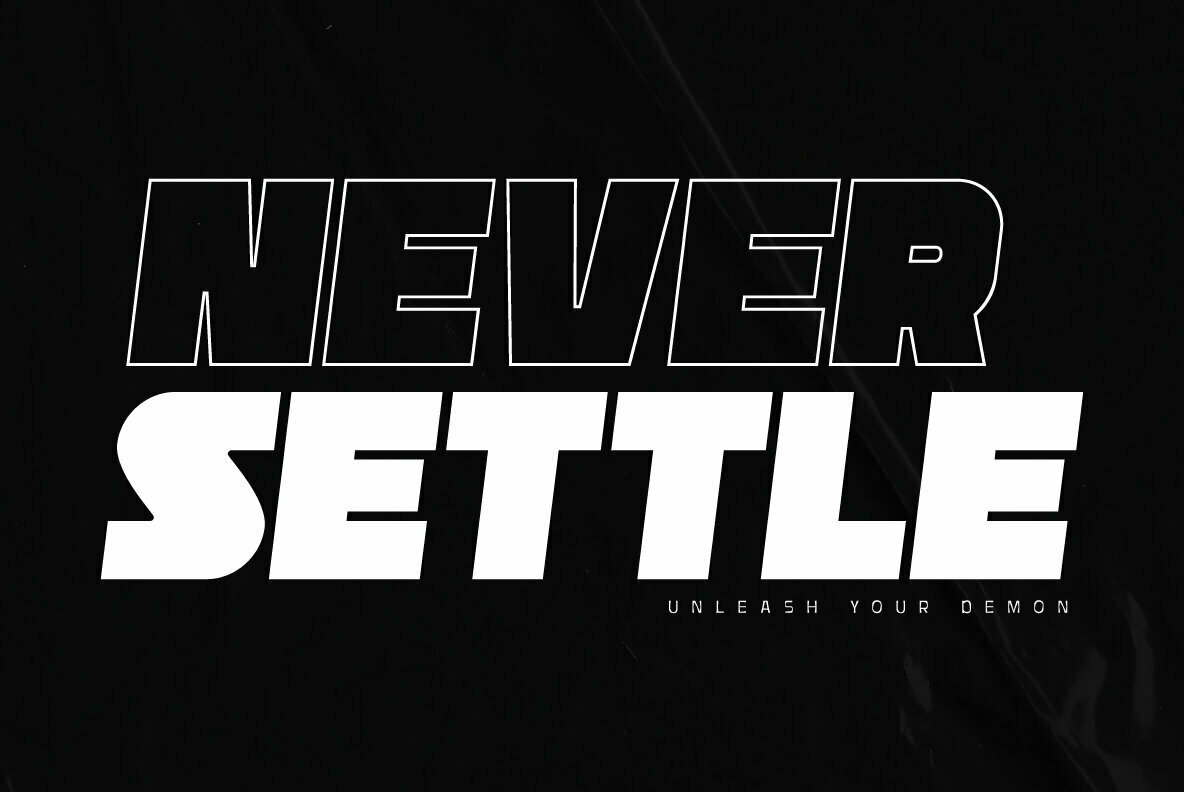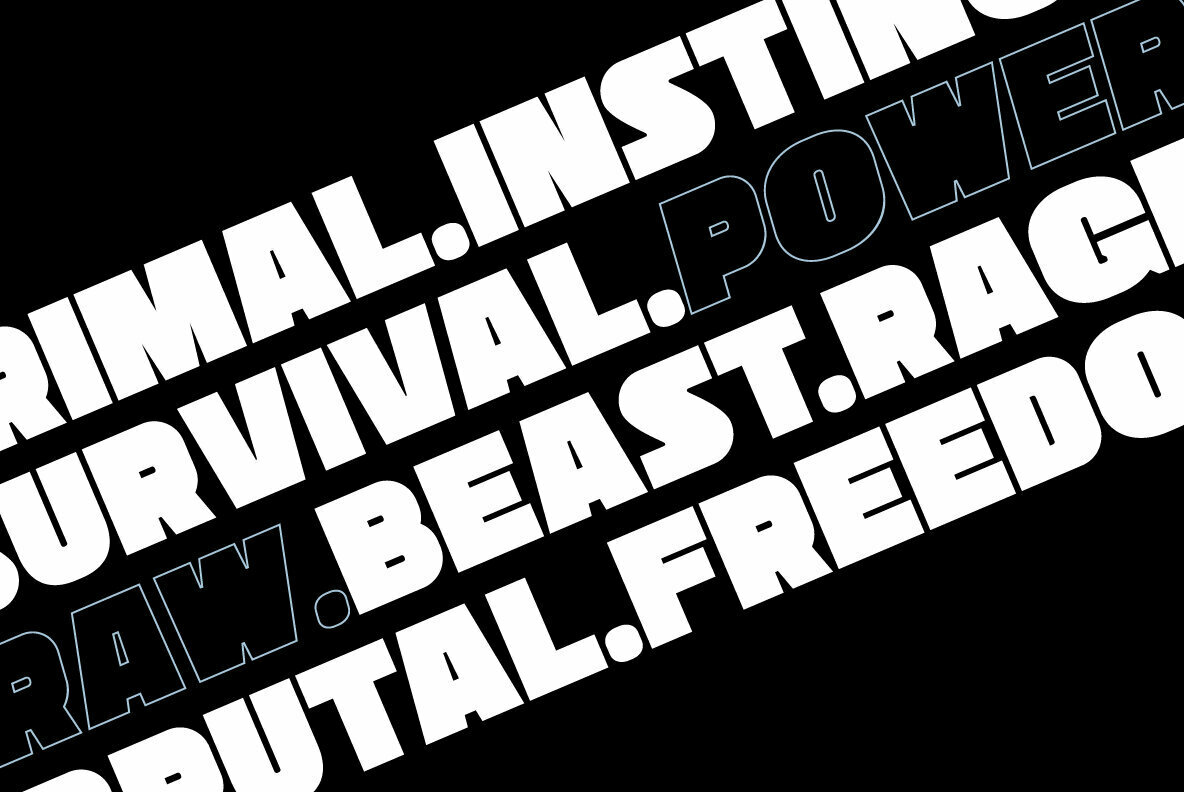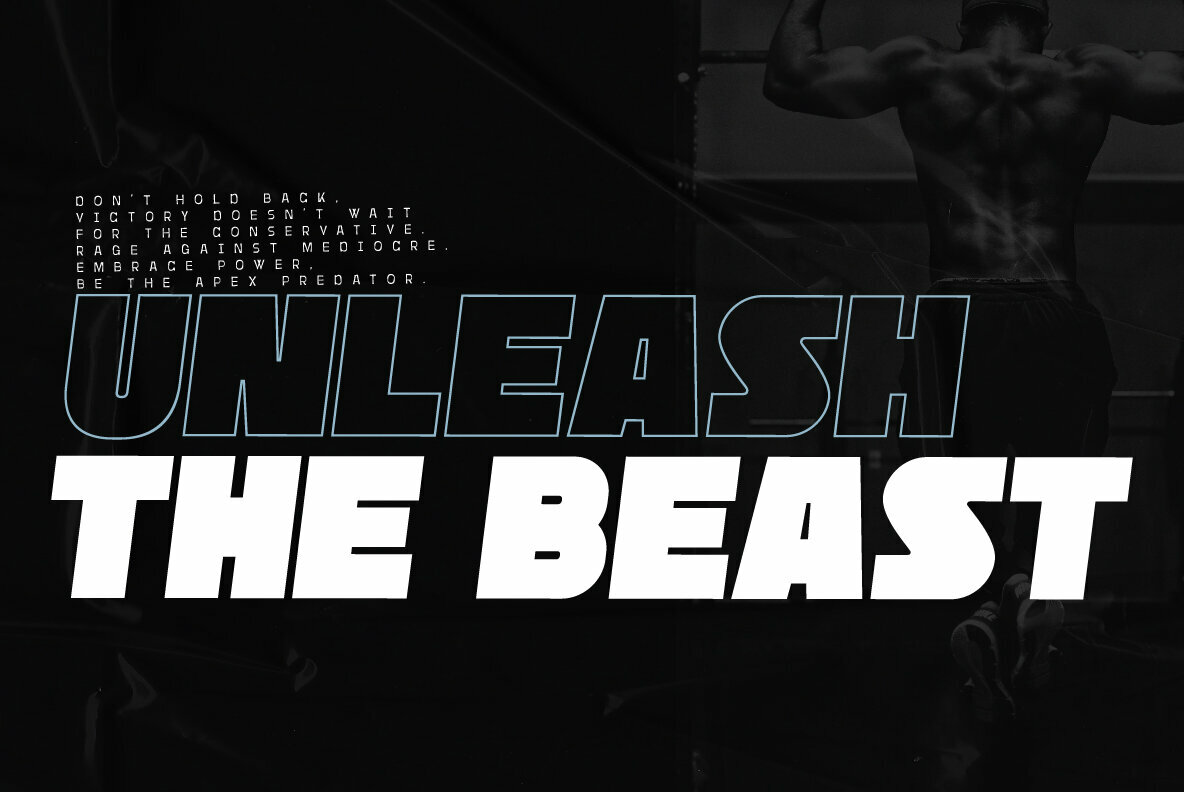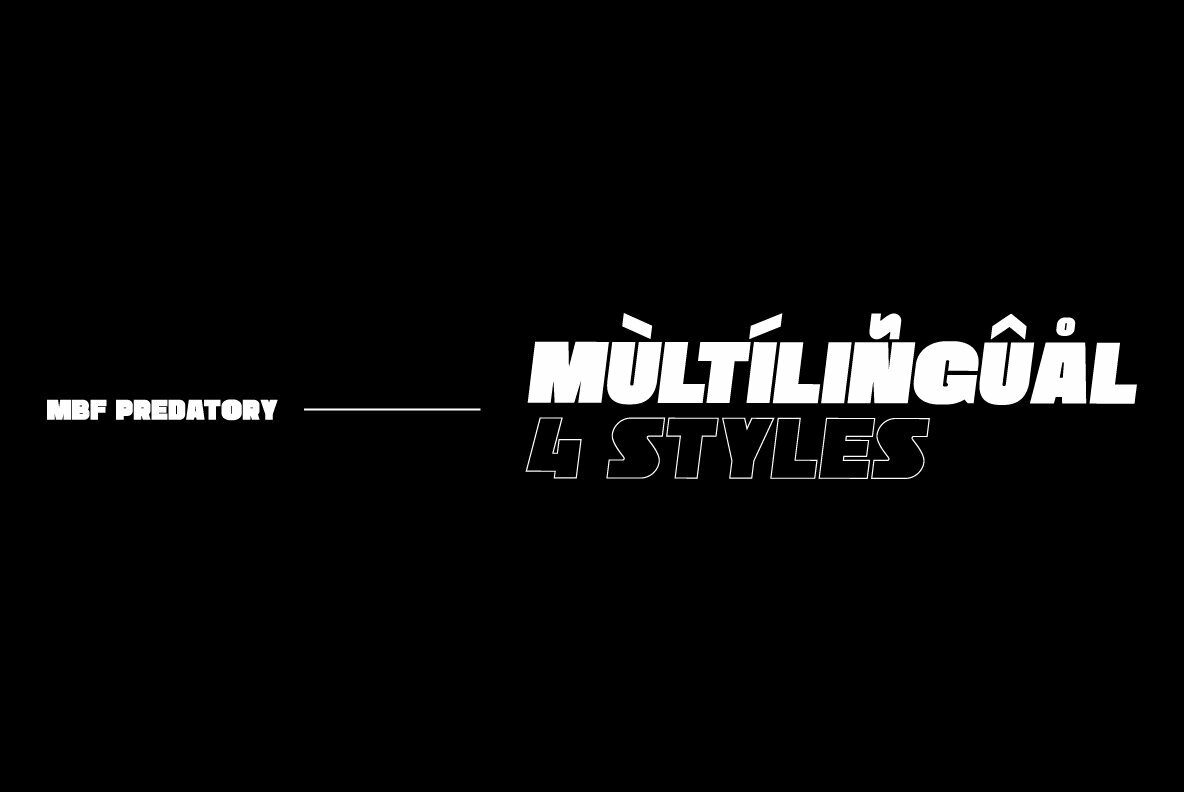
Predatory Font
MBF Predatory Regular
MBF Predatory Outline
MBF Predatory Outline Slanted
MBF Predatory Slanted
Moonbandit presents Predatory, a bold modern sans serif titling font. A multi purpose display font with high impact.